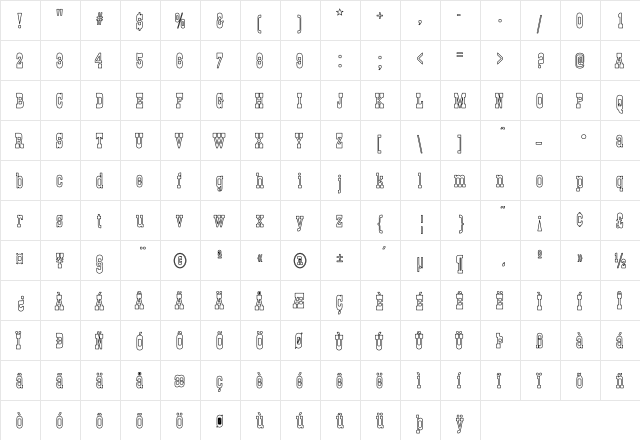
Old-Town Hollow Regular
Design Context for Old-Town Hollow Typeface
Old-Town Hollow is a composed and adaptable typeface that performs quietly and consistently across a wide range of design contexts.